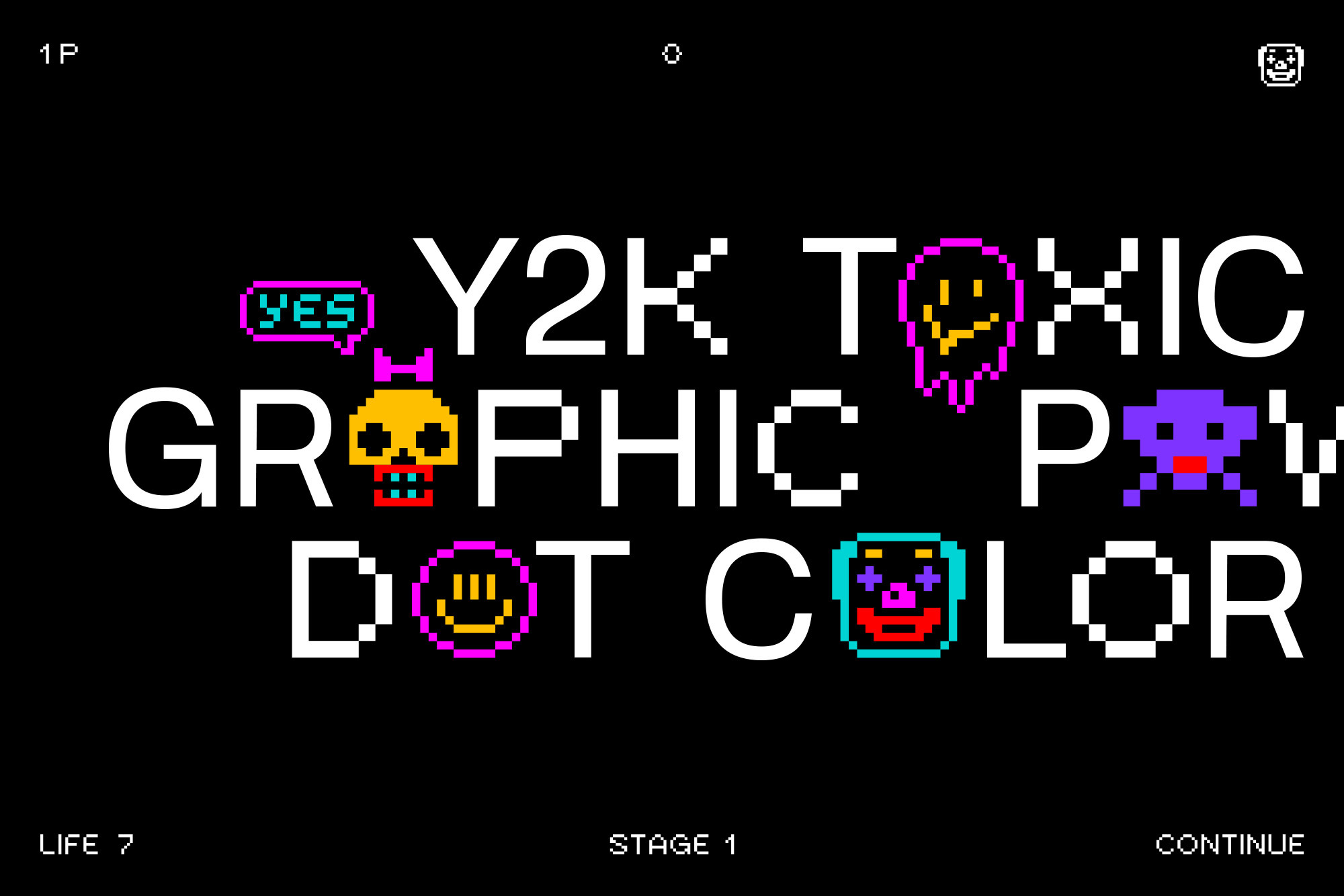
Pixelica. Color font
A fully functional color OpenType font using COLR/CPAL technology. Not SVG and not a bitmap-based format.
The vector structure is preserved when converting to outlines: the font does not turn into a “pixel mess.” Color layers remain clean vector geometry, making it easy to work with and adjust colors without redrawing contours.
Pixelica evokes the era when digital environments were still unpolished. When pixels were visible, and imperfections became part of the visual language, while glitches felt natural in early interfaces and arcade systems. This typeface is designed for projects that need more than a clean and polished look. It merges contemporary typography with early UI and arcade aesthetics, where the pixel is not a flaw but an expressive element.
Pixelica is a family of three interconnected styles: a clean grotesk, a pixel-based version, and a set of colored symbols. It supports multilingual use and extended Latin coverage. It works well in headlines, posters, merchandise, interfaces, game projects, and branding where retro aesthetics meet modern visual design.
MÜĻŤIĹĪŊĞÛÅŁ Pixelica supports most Latin-based languages.